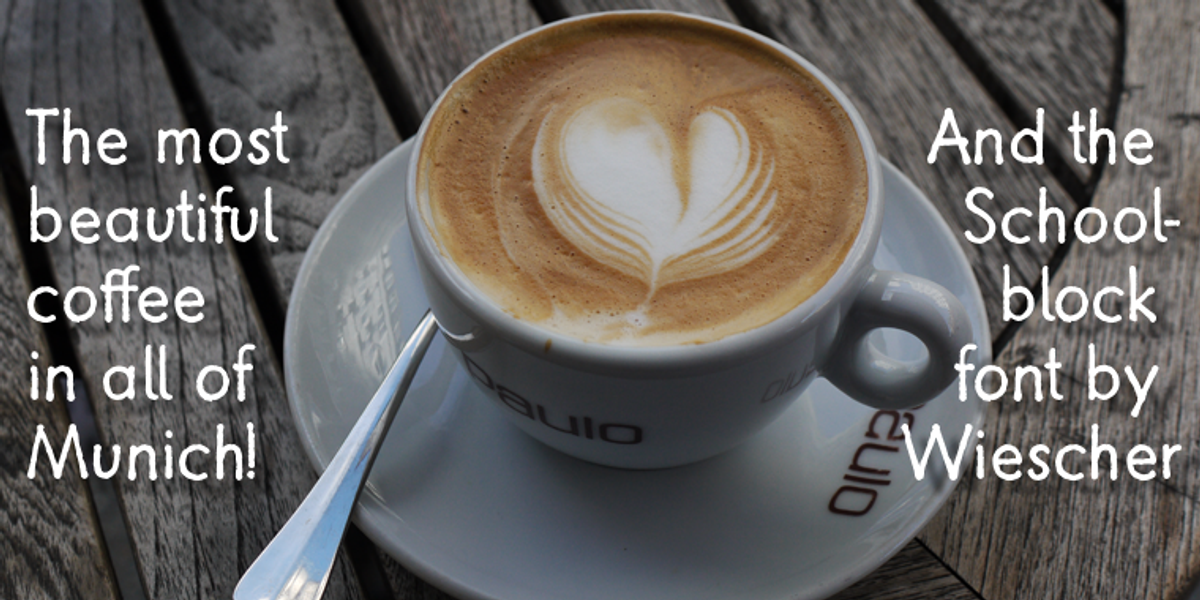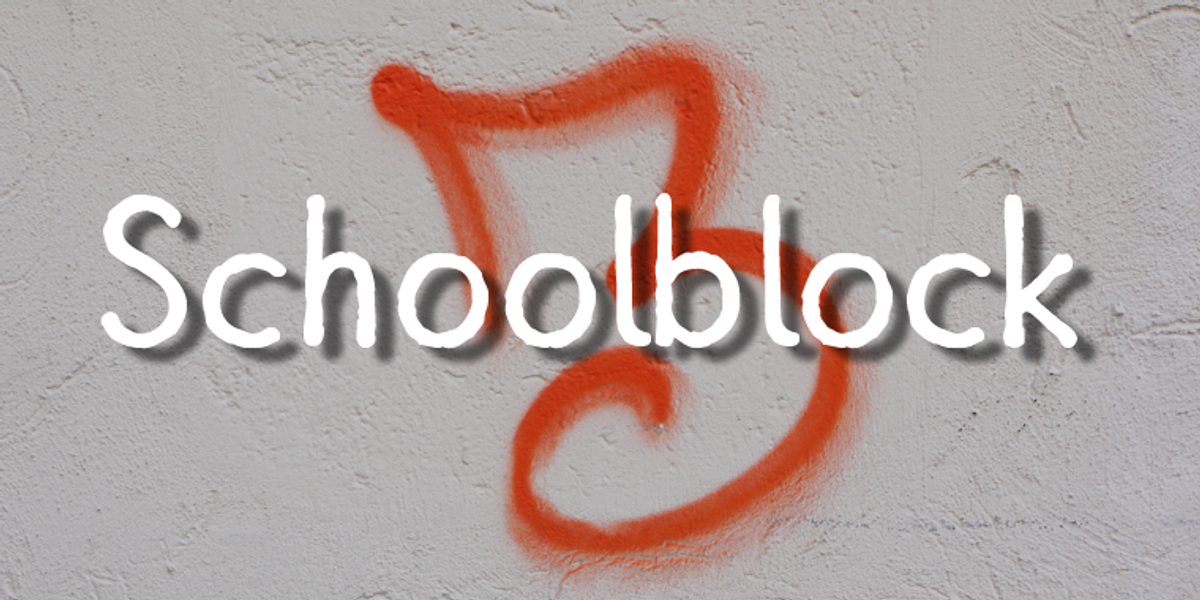
Schoolblock
This font is designed to mimic the handwriting style taught to German students. Its casual, rounded forms give it a playful and informal feel, making it suitable for applications like children's books, comics, or hand lettering.